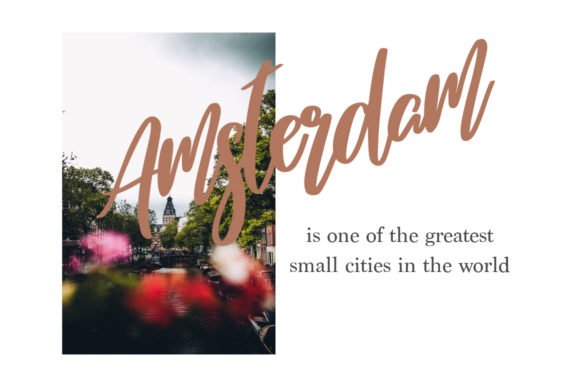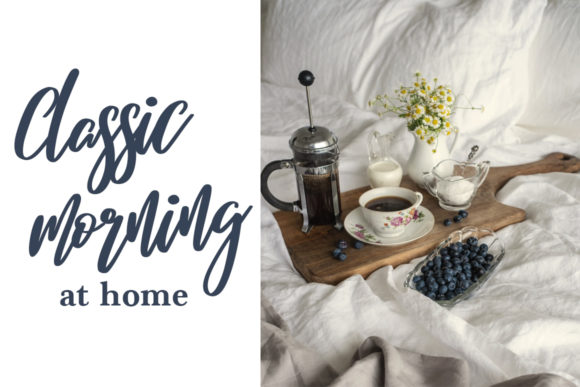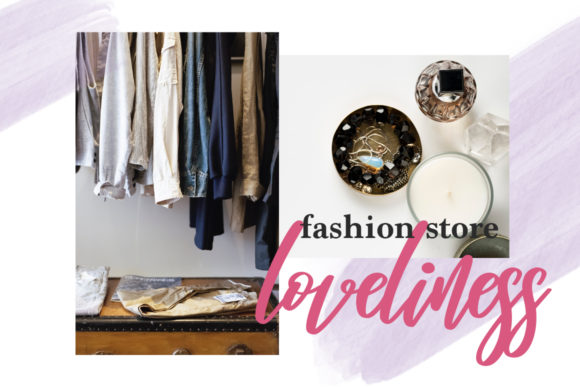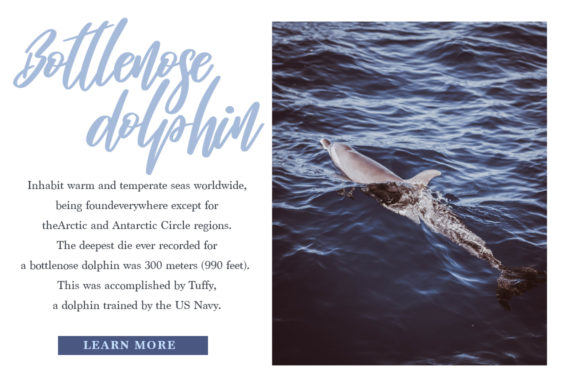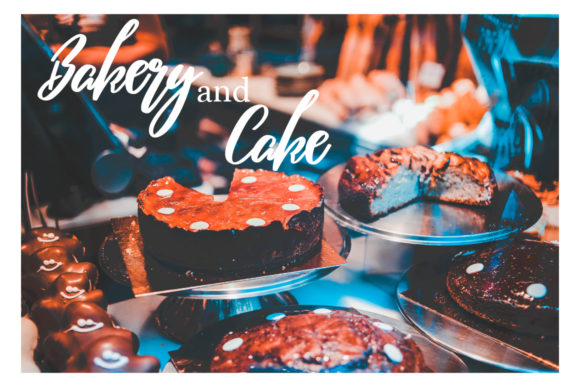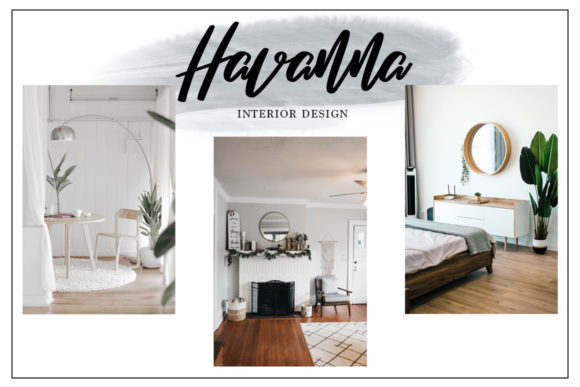
Introduction to Independent Font
Independent is a cool and bold script with a unique style.
Independent is a cool and bold script with a unique style. Get inspired by its bold feel
Key Features of Independent Font